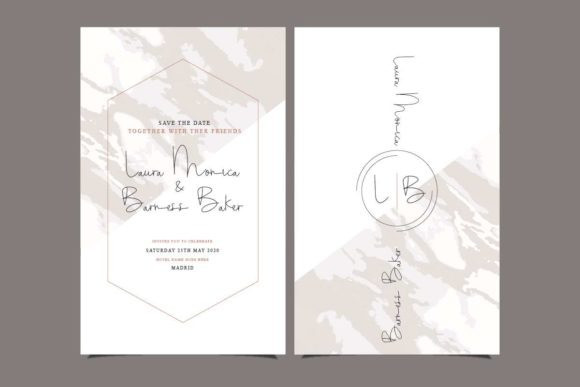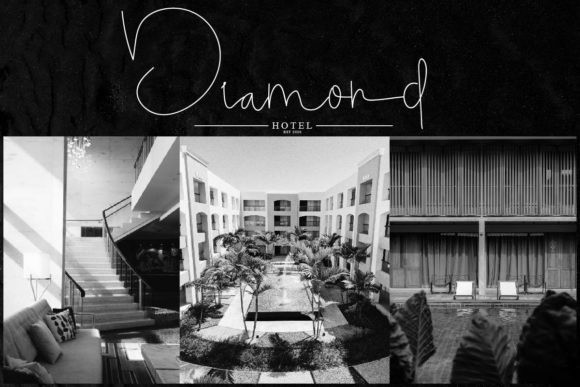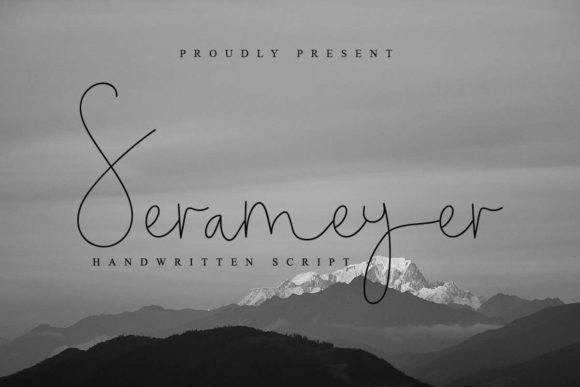
Classic Blody Script Font
Classic Blody is a delicate and elegant handwritten font. Its distinct and well rounded letters make this font a masterpiece. Fall in love with its incredibly versatile style and use it to create spectacular designs!